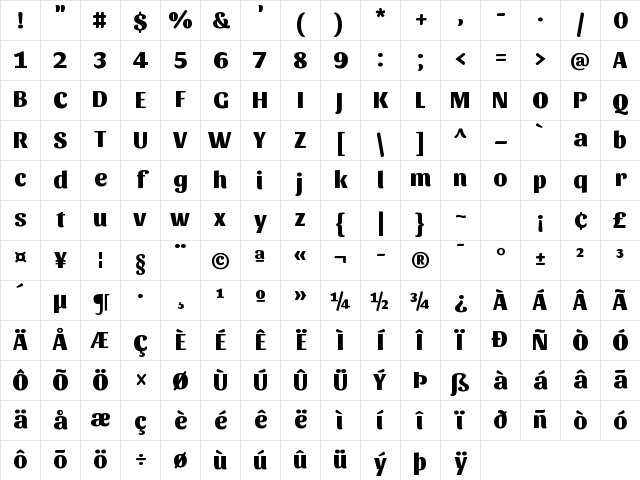
Sansita VF Beta Regular
Foundry: Omnibus-Type
Designer: Pablo Cosgaya
Design Context for Sansita VF Beta
Sansita VF Beta is a composed and adaptable typeface that performs quietly and consistently across a wide range of design contexts.